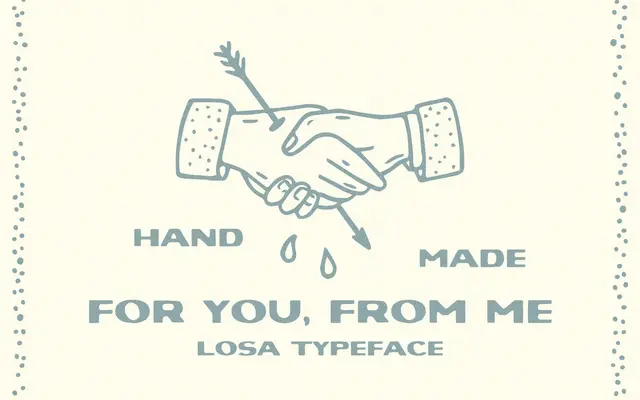
Losa
A single-weight organic display face with an easy, unpretentious character suited to branding and packaging work.
Losa comes in one weight and leans on softly organic letterforms to sit comfortably at large sizes without feeling showy. The glyph set covers 150 characters including basic Latin and a working set of Western European accents. At $25 with a flat commercial licence covering logos, packaging and web use, it is aimed squarely at independent designers and small studios.
Self-described as a display font with organic forms and steady structure, placing it squarely in the display category with an informal, hand-influenced character rather than any classical serif or sans-serif tradition.